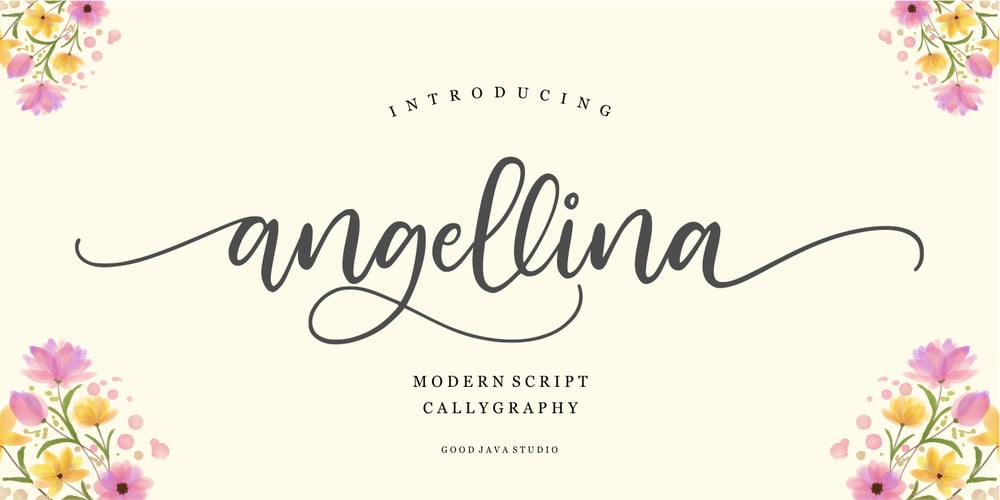
Love Angellina Font Family was designed by Good Java and published by Good Java Studio. Love Angellina contains 1 styles and family package options. Love Angellina a luxury font with a natural and modern handwritten font. It’s perfect for logos, invitations, stationery, wedding designs, social media posts, advertisements, product packaging, product designs, labels, photography, watermarks, special events or anything.